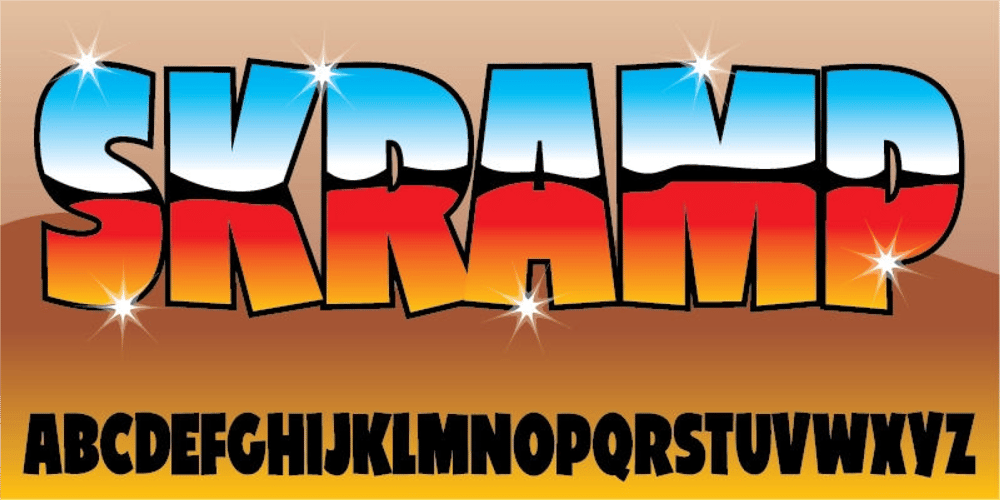
Skramp
Skramp font
Skramp Font Family was designed by Jakob Fischer and published by PizzaDude.dk. Skramp contains 1 styles and family package options. Skramp is my funky comic text font, looks good with massive text or just a headline here and there. You will need to use OpenType supporting applications to use the autoligatures